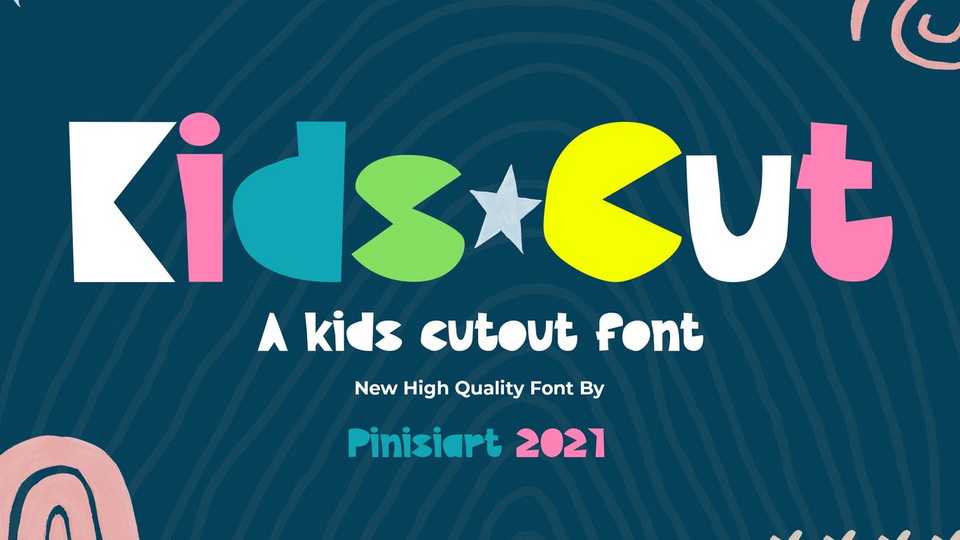
Download Kids Cut font, a cutout kids typeface inspired by a fresh paper that is cut out and create a font. Kids Cut is full of happiness and joyful adventure in it